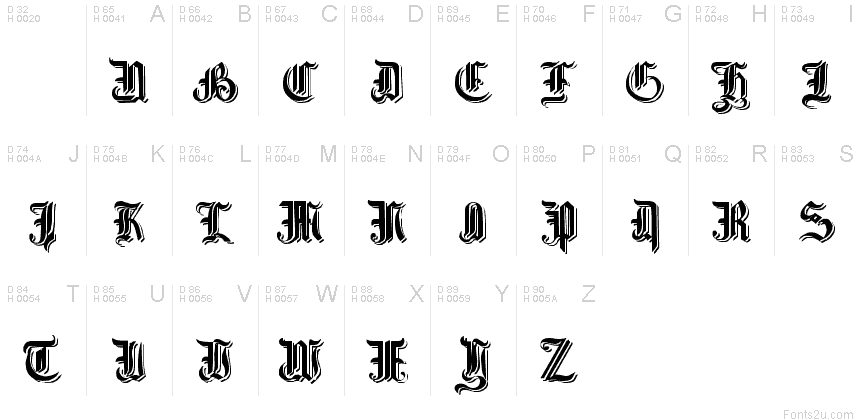
Simplicity No2 by PJL is a free medieval blackletter initial font built from broad, sweeping curves and hard, folded-looking angles. Its letters resemble ribbon or cut paper, with dark masses broken by narrow white channels. The result is ornate and theatrical, yet the shapes retain a crisp graphic edge.
In publishing, it suits chapter openings and fantasy book covers. The same carved-paper silhouette links historical game menus, heraldic event posters, and fantasy merchandise through their shared ribbon curves and heraldic, emblem-like form.